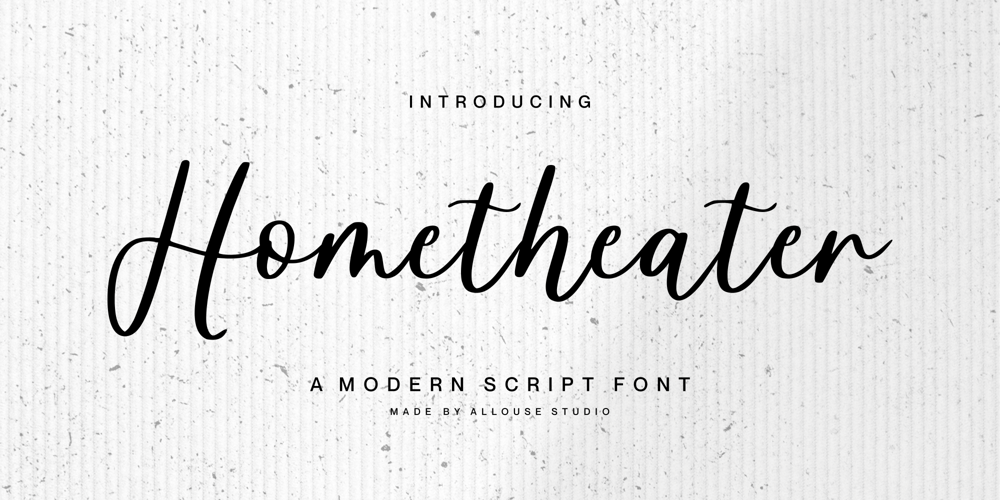
Hometheater
Hometheater font
Hometheater Font Family was designed by Fachrizal Yusuf and published by Allouse Studio. Hometheater contains 1 styles and family package options. Proudly Presenting, Hometheater A Modern Script Font.Hometheater is perfect for any titles, logo, product packaging, branding project, megazine, social media, wedding, or just used to express words above the background.Hometheater also come with Multi-Lingual Support.Enjoy the font, feel free to comment or feedback, send me PM or email. Thank You!